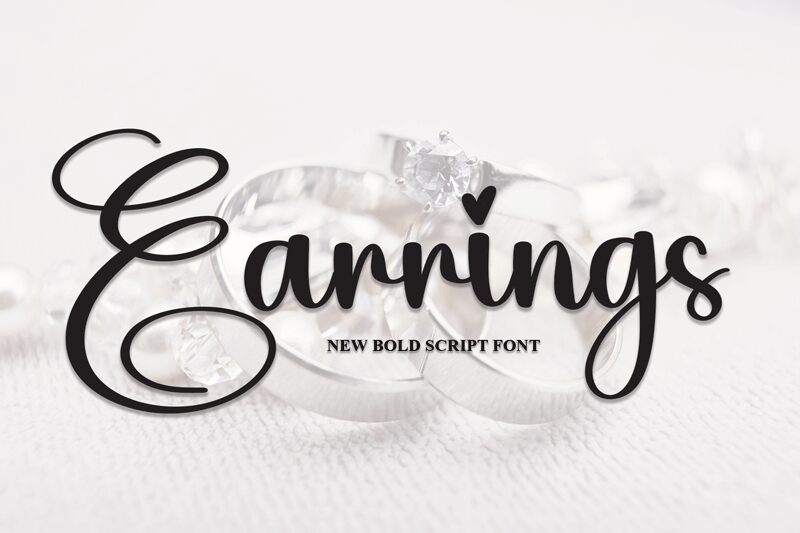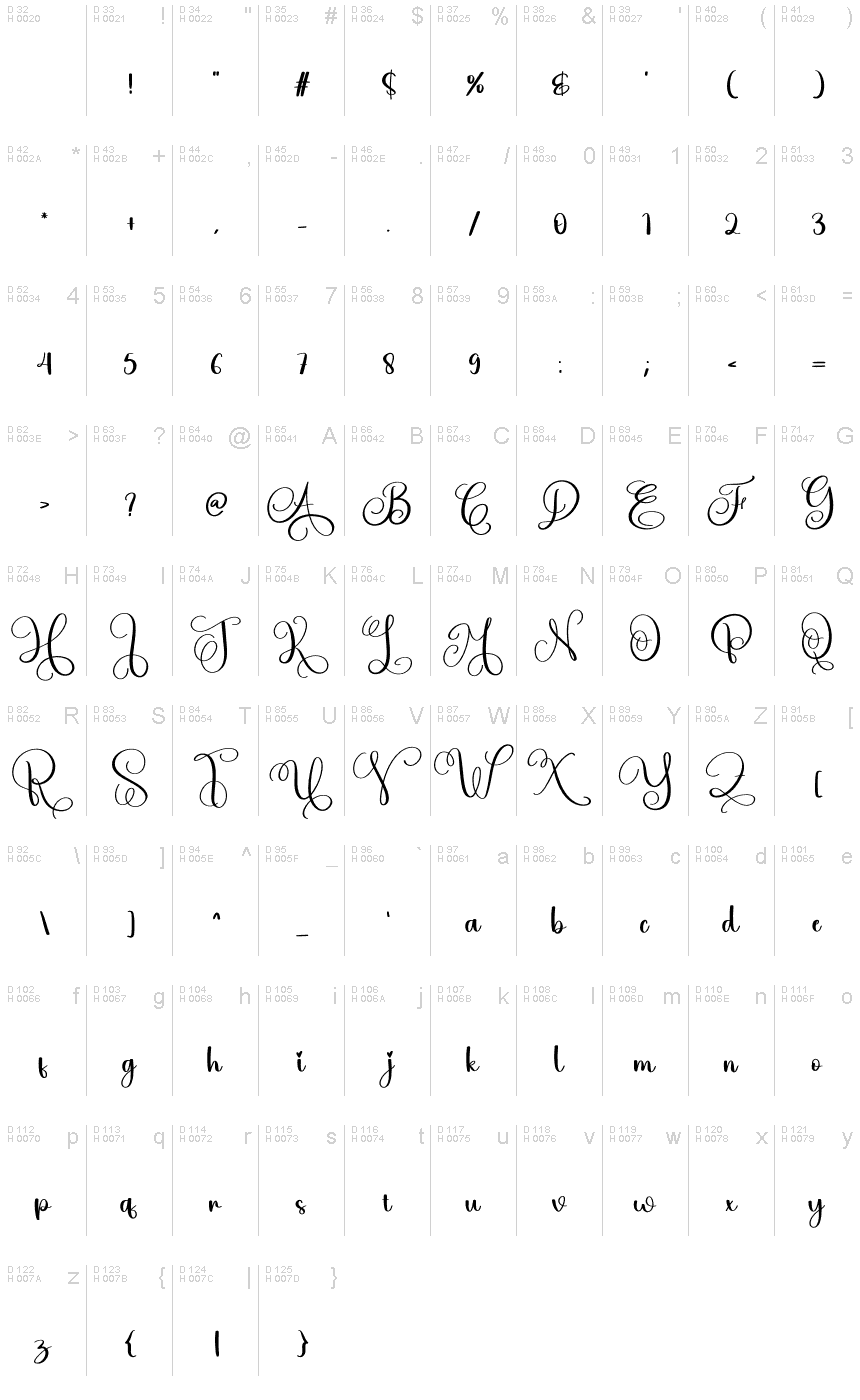
Earrings
Earrings, a mesmerizing calligraphy font designed by scratchones, exudes an aura of elegance and grace. With its semi-light weight, this delicately crafted typeface showcases the perfect balance between subtlety and sophistication. Suitable for a vast array of projects, Earrings lends itself beautifully to wedding invitations, feminine branding materials, luxurious fashion magazines, and refined packaging designs. Its flowing curves and intricate details create a captivating visual experience that will leave a lasting impression on any creative endeavor. Elevate your projects with the timeless charm of Earrings calligraphy font.